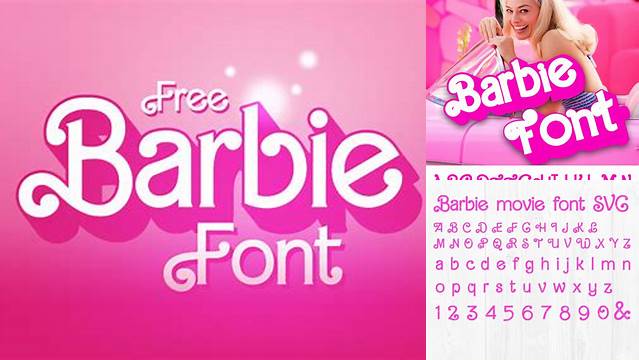
Barbie Movie Font: Free Options & How To Use Them
Are you a big fan of the Barbie movie and eager to capture its aesthetic in your designs? One of the key elements that contributes to the movie's visual appeal is its distinctive font. If you're looking to infuse your projects with that Barbie-esque flair, finding the right font is crucial. In this comprehensive guide, we'll explore the various font options available, focusing on where you can find them for free and how to use them effectively. Whether you're working on a social media post, a birthday invitation, or a full-blown marketing campaign, understanding the Barbie movie font landscape will help you achieve the perfect look.
Understanding the Barbie Movie Font
Before we dive into the specifics, let's discuss what makes the Barbie movie font so unique. The typography used in the movie's promotional materials and branding plays a significant role in conveying its tone and style. Typically, the font is characterized by its playful, stylish, and modern appearance. It often features smooth curves, bold lines, and a touch of glamour, perfectly aligning with Barbie's iconic brand image. The exact font used in the official Barbie movie marketing materials is a closely guarded secret, but don't worry, guys! There are plenty of similar fonts that can help you recreate the vibe. Understanding these characteristics will guide you in selecting the best alternatives.
The fonts chosen for the Barbie movie are not just aesthetically pleasing; they are strategically selected to resonate with the target audience. The typography evokes a sense of nostalgia while maintaining a contemporary edge, making it appealing to both long-time Barbie fans and new audiences. The use of bold and vibrant fonts ensures readability and impact, crucial for grabbing attention in a visually saturated world. The designers behind the Barbie movie understand the power of typography in shaping brand perception and creating a cohesive visual identity. This attention to detail is what sets the Barbie movie apart and makes its font choices so influential. So, when you're aiming to capture the essence of the Barbie movie in your designs, keep these elements in mind. The right font can truly make your project shine, reflecting the same level of sophistication and fun that defines the Barbie brand.
Identifying Fonts Similar to the Barbie Movie Font
Identifying fonts similar to the Barbie movie font involves looking for typefaces that share key characteristics such as boldness, curves, and a touch of modern glamour. There are several fonts that come close to capturing the essence of the Barbie movie's typography. Some popular options include Futura, Avant Garde, and Bebas Neue. These fonts share the clean lines and geometric shapes that are reminiscent of the Barbie aesthetic. However, finding an exact match can be challenging due to licensing restrictions and the possibility of custom fonts being used in the official marketing materials.
One way to identify similar fonts is to use online font identification tools. Websites like WhatTheFont and Fonts by Image allow you to upload an image of the text and will suggest fonts that closely resemble it. This can be a helpful starting point in your search. Another approach is to browse font libraries and marketplaces, such as Google Fonts, Adobe Fonts, and MyFonts, using keywords like "geometric," "modern sans-serif," or "bold display." These platforms offer a wide variety of fonts, and you can often filter your search by style, weight, and other characteristics. When evaluating potential fonts, pay attention to the overall shape, the thickness of the strokes, and the presence of any unique features. Look for fonts that have a similar x-height (the height of the lowercase letters) and cap height (the height of the uppercase letters) to the Barbie movie font. Also, consider the spacing between letters, as this can significantly impact the readability and visual appeal of the text. By carefully comparing these elements, you can narrow down your options and find a font that closely matches the Barbie movie's distinctive style. Remember, the goal is not just to find an exact duplicate but to capture the overall feeling and aesthetic of the original.
Where to Find Free Barbie Movie Fonts
Finding free fonts that mimic the Barbie movie aesthetic can be a rewarding quest. Several online resources offer a variety of free font options that capture the playful and stylish essence of the Barbie brand. One of the best places to start your search is Google Fonts. This platform offers a vast library of open-source fonts that are free for both personal and commercial use. You can find fonts like Montserrat, Lato, and Open Sans, which, while not exact matches, can be styled to resemble the Barbie movie font. These fonts are versatile and widely used, making them excellent choices for various design projects.
Top Free Fonts Similar to the Barbie Movie Font
When searching for free fonts that evoke the Barbie movie's style, several standout options capture the essence of its bold and glamorous typography. These fonts provide a great starting point for your projects, allowing you to create designs that resonate with the movie's aesthetic. One excellent choice is Montserrat, a geometric sans-serif font available on Google Fonts. Montserrat features clean lines and a modern appearance, making it a versatile option for headings, body text, and more. Its bold weights are particularly effective for capturing the impact of the Barbie movie font.
Another fantastic option is Lato, also available on Google Fonts. Lato is a humanist sans-serif font known for its readability and friendly appearance. While it may not be as overtly bold as some other options, Lato's balanced design and various weights make it suitable for a wide range of applications. Its lighter weights can add a touch of elegance, while the bolder weights provide the necessary punch for headlines and titles. Open Sans is another popular choice from Google Fonts. This font is highly legible and has a clean, neutral design, making it a reliable option for various projects. Its versatility allows it to be adapted to different styles, including the Barbie movie aesthetic. For a slightly more distinctive look, consider Bebas Neue, a condensed sans-serif font that is widely used for headlines and posters. Bebas Neue's tall, narrow letterforms make it a great choice for creating eye-catching titles and headings. Remember, guys, that while these fonts are not exact replicas of the Barbie movie font, they offer a similar vibe and can be customized to fit your specific needs. Experiment with different weights, sizes, and styles to achieve the perfect look for your Barbie-inspired designs. By combining these fonts with the right colors and graphics, you can create stunning visuals that capture the magic of the Barbie movie.
How to Use Barbie Movie Fonts in Your Projects
Using Barbie movie-inspired fonts effectively in your projects involves careful consideration of your design goals and target audience. The right font can elevate your project, capturing the playful yet stylish essence of the Barbie brand. When incorporating these fonts, think about the overall tone you want to convey. Are you aiming for a fun, whimsical feel, or a more sophisticated and glamorous look? The font you choose should align with this vision. For projects targeting a younger audience, bolder and more playful fonts may be appropriate. For designs aimed at adults, a more refined and elegant font might be a better choice.